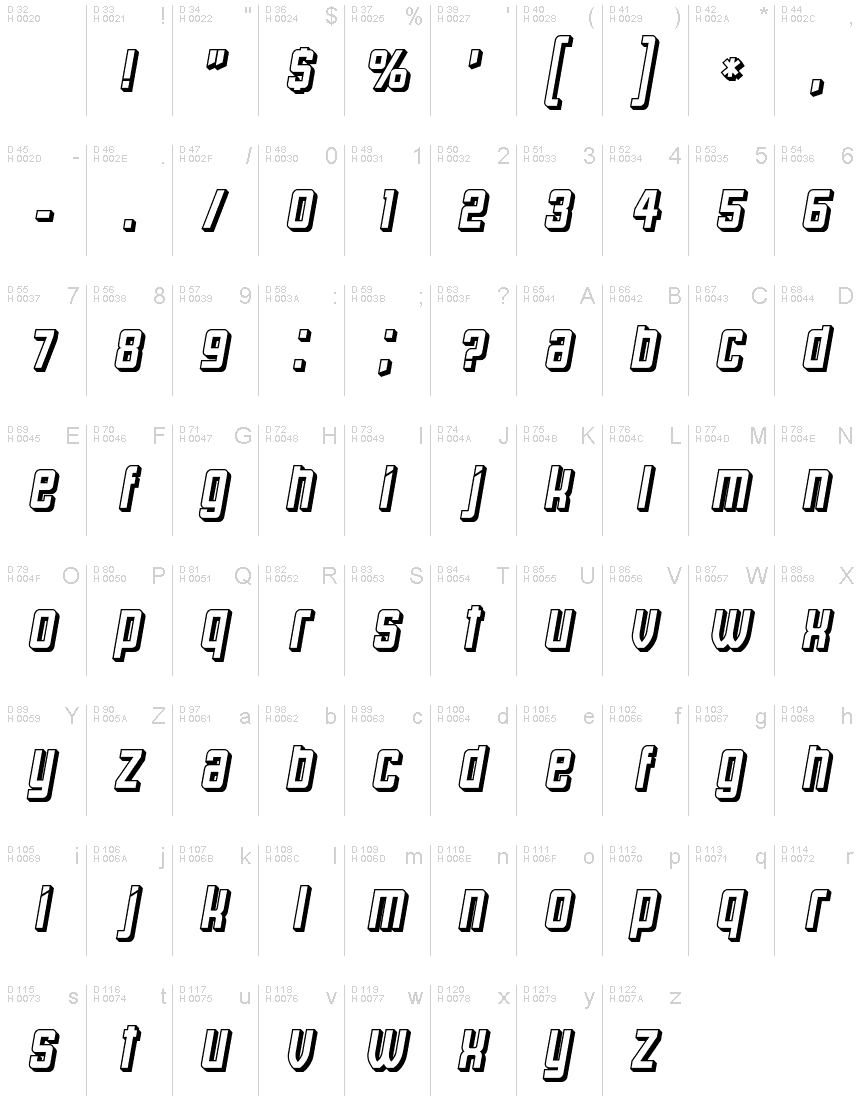
Riviera Condensed
Riviera Condensed is a stunning display font designed by Vladimir Nikolic. With its extra-condensed width and 3d style, it's perfect for projects that require a bold and impactful statement. Imagine using this font for your next branding project, creating eye-catching logos, or designing product packaging that stands out on the shelves. Riviera Condensed is also suitable for editorial design, such as magazine headlines or book covers that demand attention. Let your creativity run wild with this unique and versatile typeface that's sure to make a lasting impression on any project it's used in.